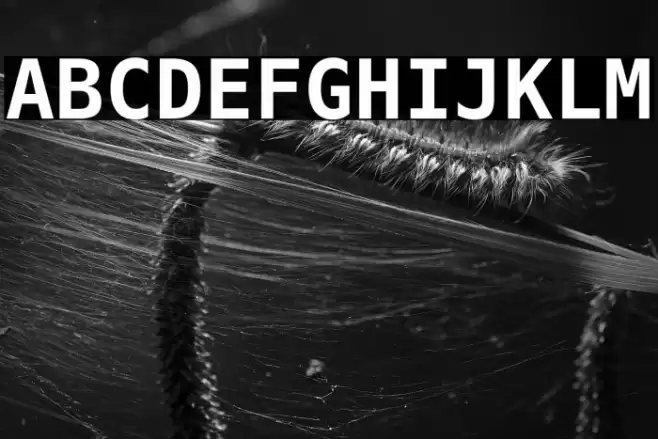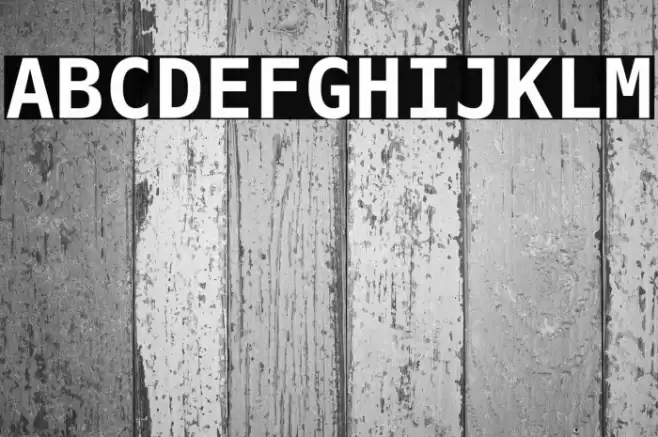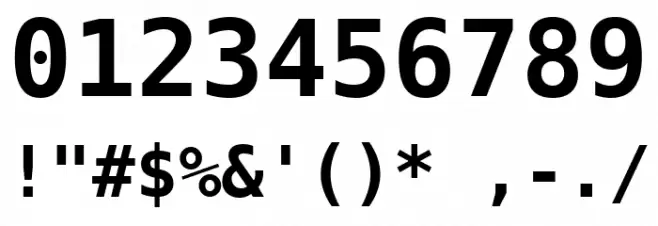
DejaVu Sans Mono Bold Font
DejaVu Sans Mono Bold Description
This font features a clean and modern monospaced design, characterized by uniform character width and a bold weight. The letters are evenly spaced, providing a balanced and structured appearance. The strokes are consistent in thickness, offering a low contrast that enhances readability. Its simplicity and clarity make it suitable for coding environments, technical documentation, and any context where legibility is paramount. The font includes a full set of uppercase and lowercase letters, numerals, and a variety of special characters, making it versatile for various applications.
A bold, monospaced font with uniform character width and low contrast, ideal for coding and technical documentation from Sans Serif fonts.
- Font: DejaVu Sans Mono Bold
- Proposed Projects: Ideal for coding, technical documentation, data tables, and any project requiring precise alignment and readability.
- Use Case: Coding, Technical documentation, Data tables